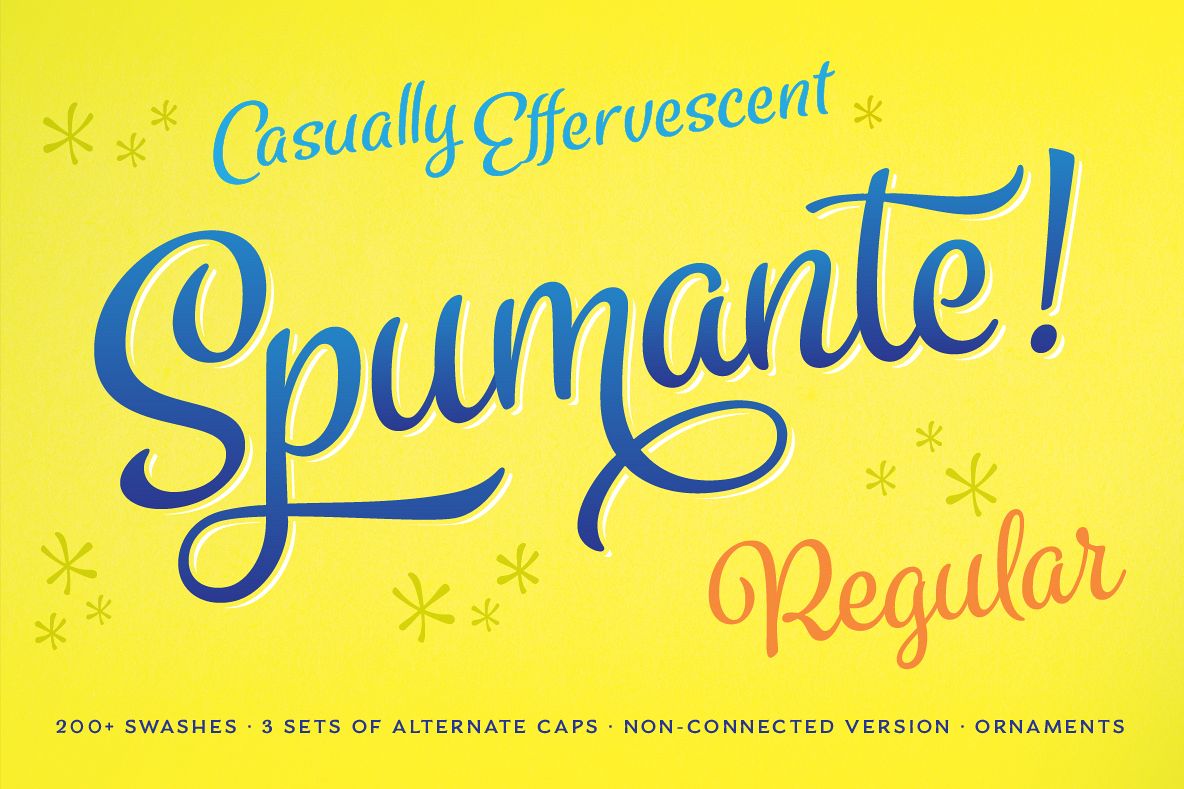
A slim, semi-connected script with lithely upright curves, Spumante is
ideal for food packaging and menus, cosmetic labels, book covers, or
greeting cards and invitations. Dress it up with over 200 swashes,
alternates, and ornaments, or use the titling alternates for a
minimalist, unconnected look. Spumante Shadow (FREE!) was designed to
complement the regular weight of Spumante.